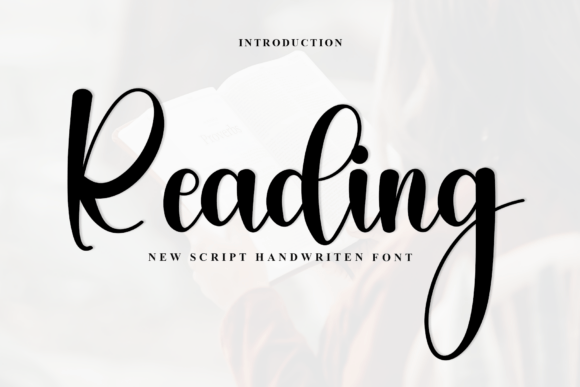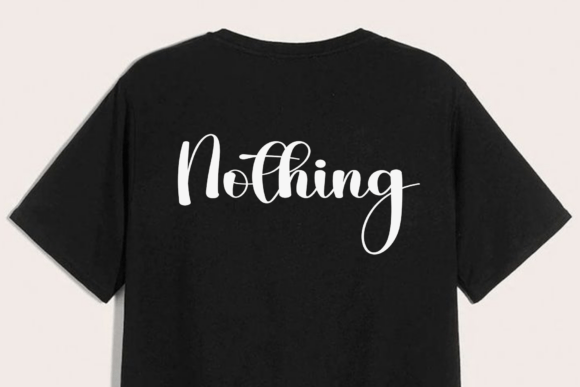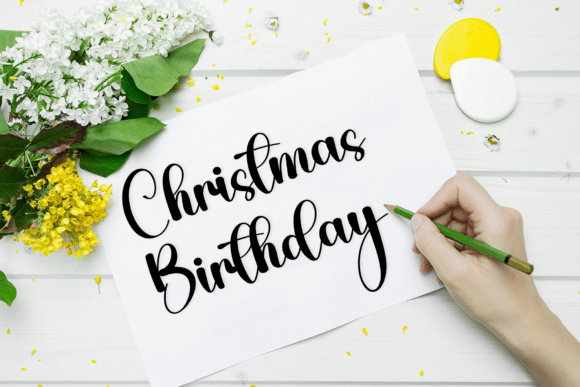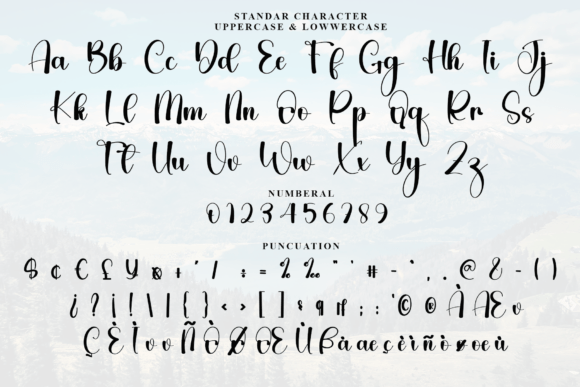
Reading Font: Delicate Handwritten Script for DIY & Cricut
About the Reading Font
Step up your design game with Reading Font, a font that exudes confidence and style. Reading is a delicate handwritten font carefully crafted for a cool and unique design. This font can be used to write letters, invitations, food products, titles, and more.
Reading Font excels in applications requiring a touch of handcrafted charm. It’s ideal for headlines, short-form text on packaging, or stylish branding elements where its delicate nature adds visual interest. Consider it for invitations, short quotes, or even logotypes for businesses with a handmade or artisan feel.
However, its delicate nature makes it unsuitable for body text or long paragraphs. Legibility suffers at smaller sizes, and the informal style isn’t appropriate for projects requiring a formal or corporate tone. Avoid using it in user interfaces (UI) where clear readability is paramount.
Pair Reading Font with a clean sans-serif like Montserrat for a balanced contrast, or a classic serif like Garamond for a more traditional feel. For a playful touch, consider pairing it with a quirky script font like Pacifico, but use sparingly to maintain visual harmony. The overall personality is best described as friendly, delicate, and slightly whimsical.
Reading Font Usage Examples
Reading Font Example